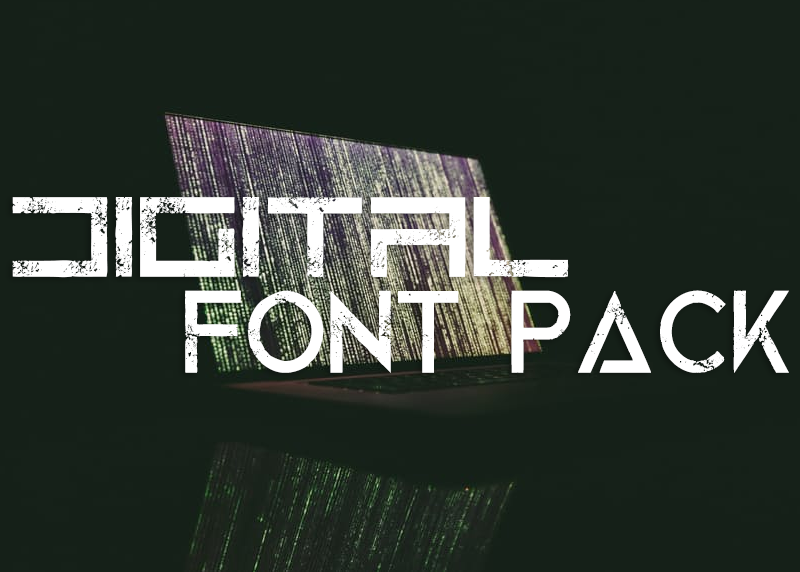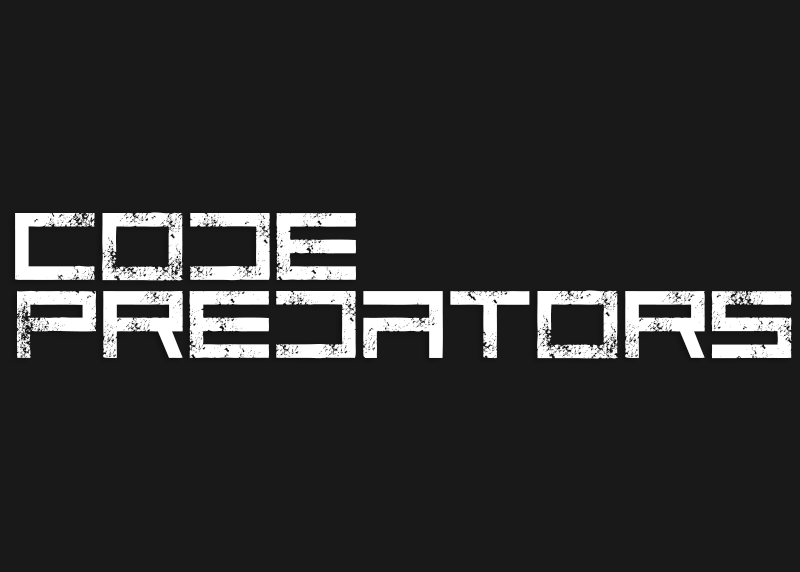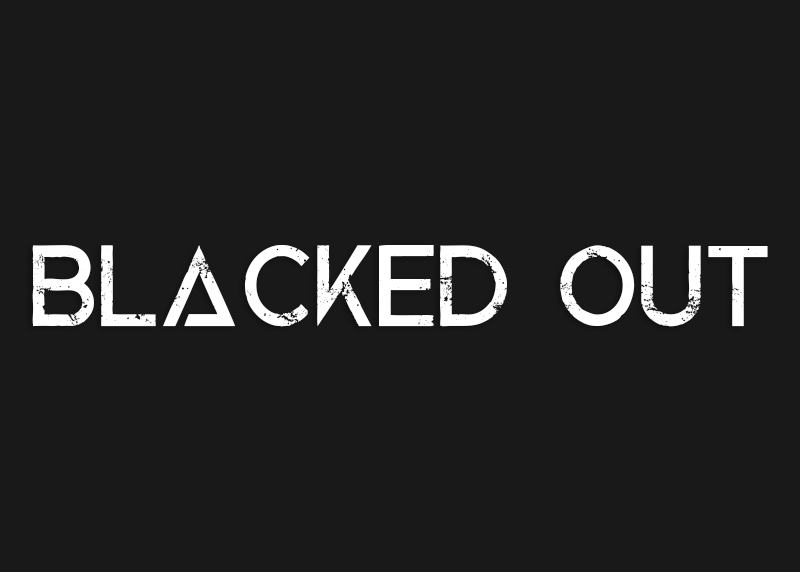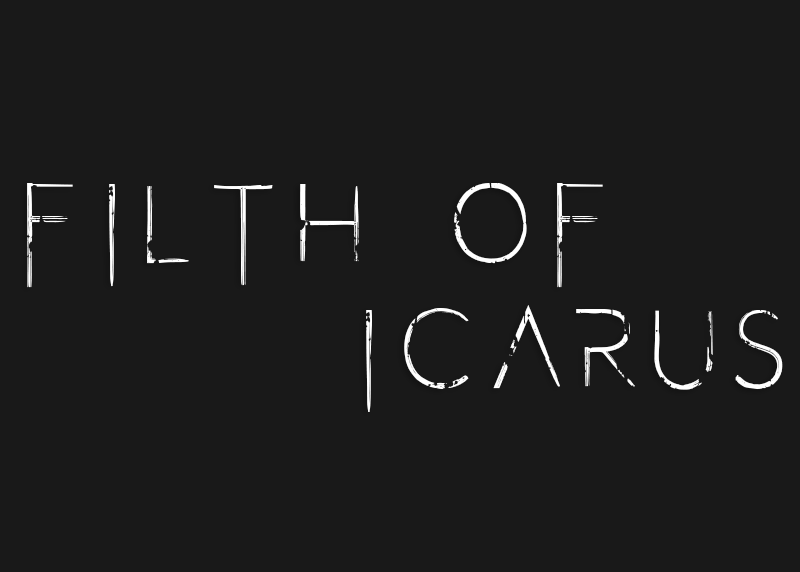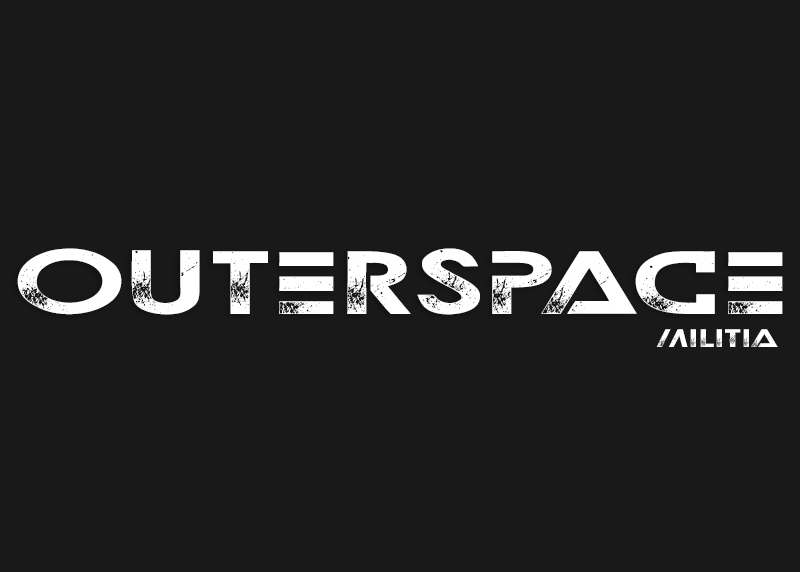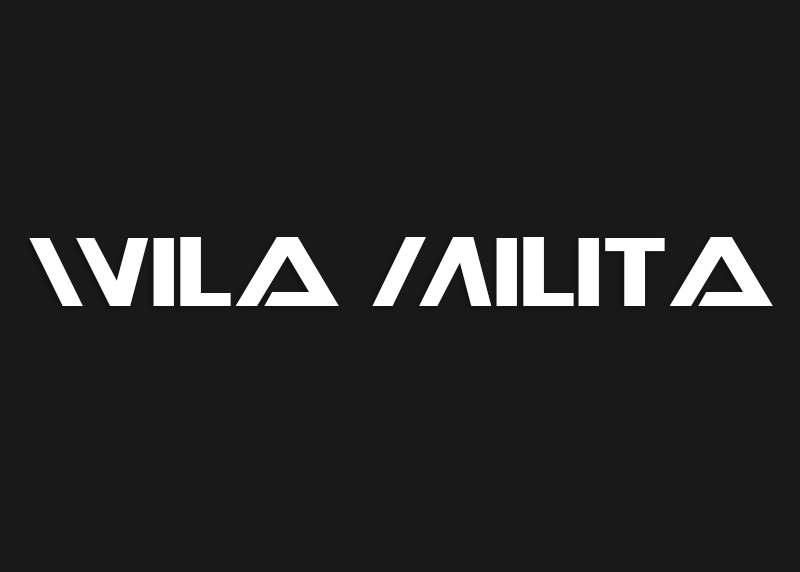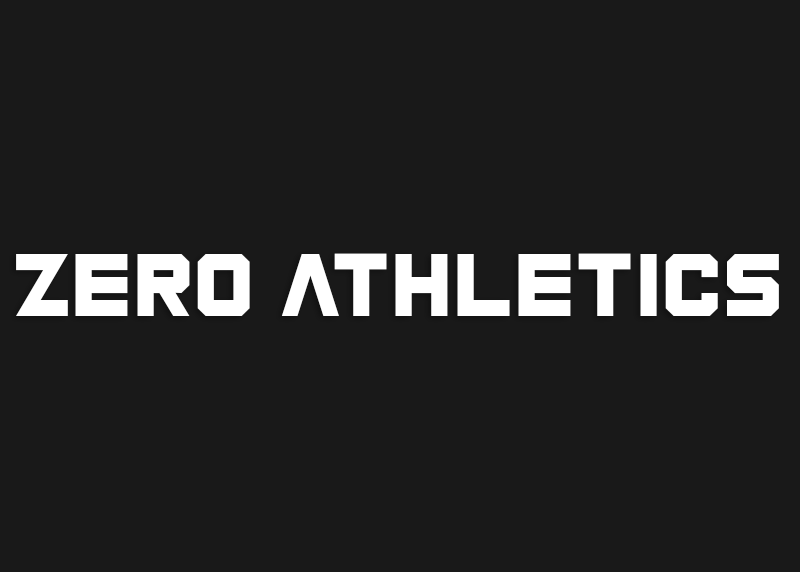
Digital Design Font Pack
The Digital Design Font Pack
This collection of fonts includes all the best selling sci-fi, digital, athletic, & techno style fonts. Save money when you purchase this font bundle! The font pack is perfect for music labels, studios, game studios, app developers, movie, poster, and flyer design & marketing!
| Code Predators | Blacked Out |
| Mechanization | Filth of Icarus |
| Outerspace Militia | Quaaludes (includes solid version) |
| The Last Call | Under Authority (includes solid version) |
| Wilia Milita | Zero Athletics |